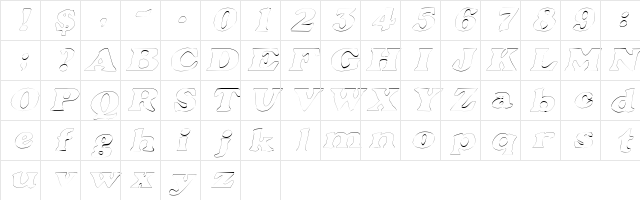
GrantOutline Oblique
Design Context for GrantOutline
GrantOutline is built around its visual character rather than neutral utility - its distinctive forms are designed to make an impression at display sizes. The slanted form adds forward momentum and visual energy.
Font Pairing: Pair with a clean neutral sans-serif for body copy to let GrantOutline's character lead without overwhelming the composition.
Pro Tip: Use GrantOutline exclusively at display sizes - it was designed to be seen, not read at length. Let a neutral companion handle body copy.